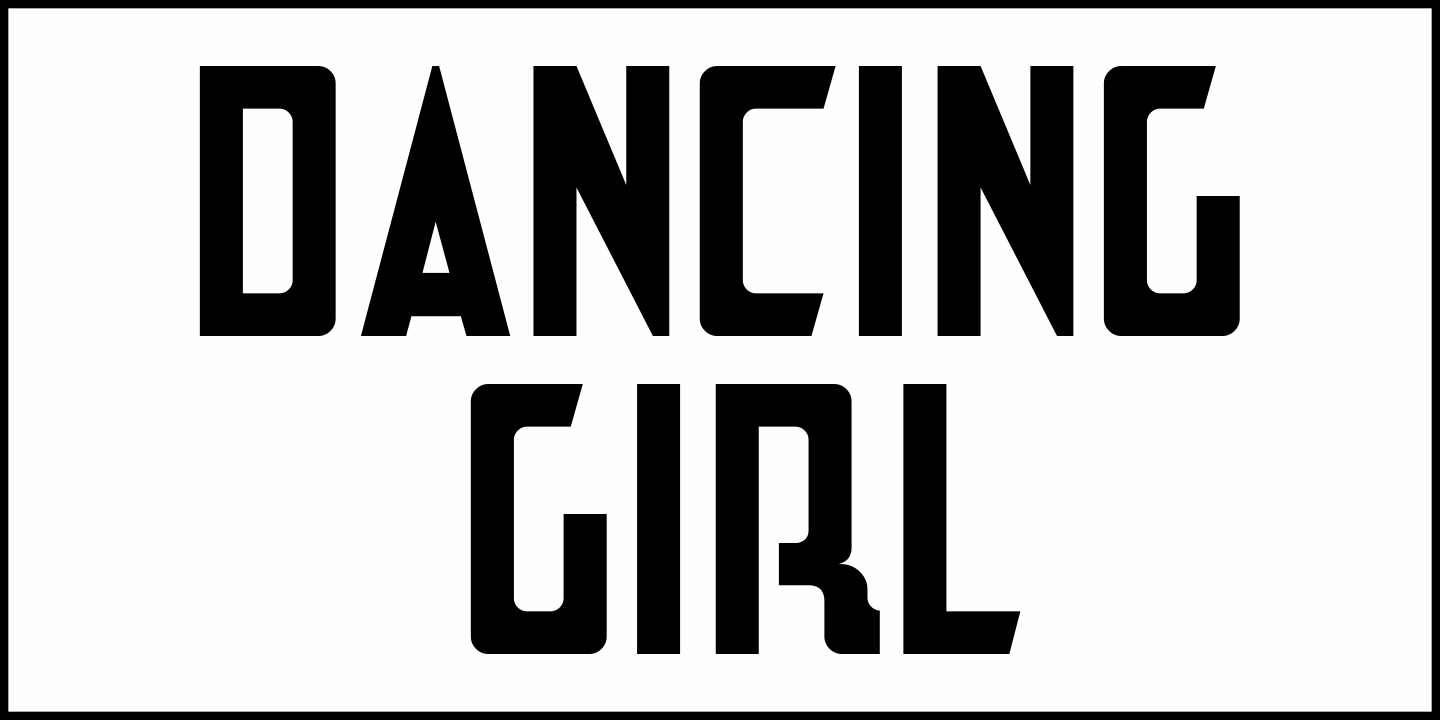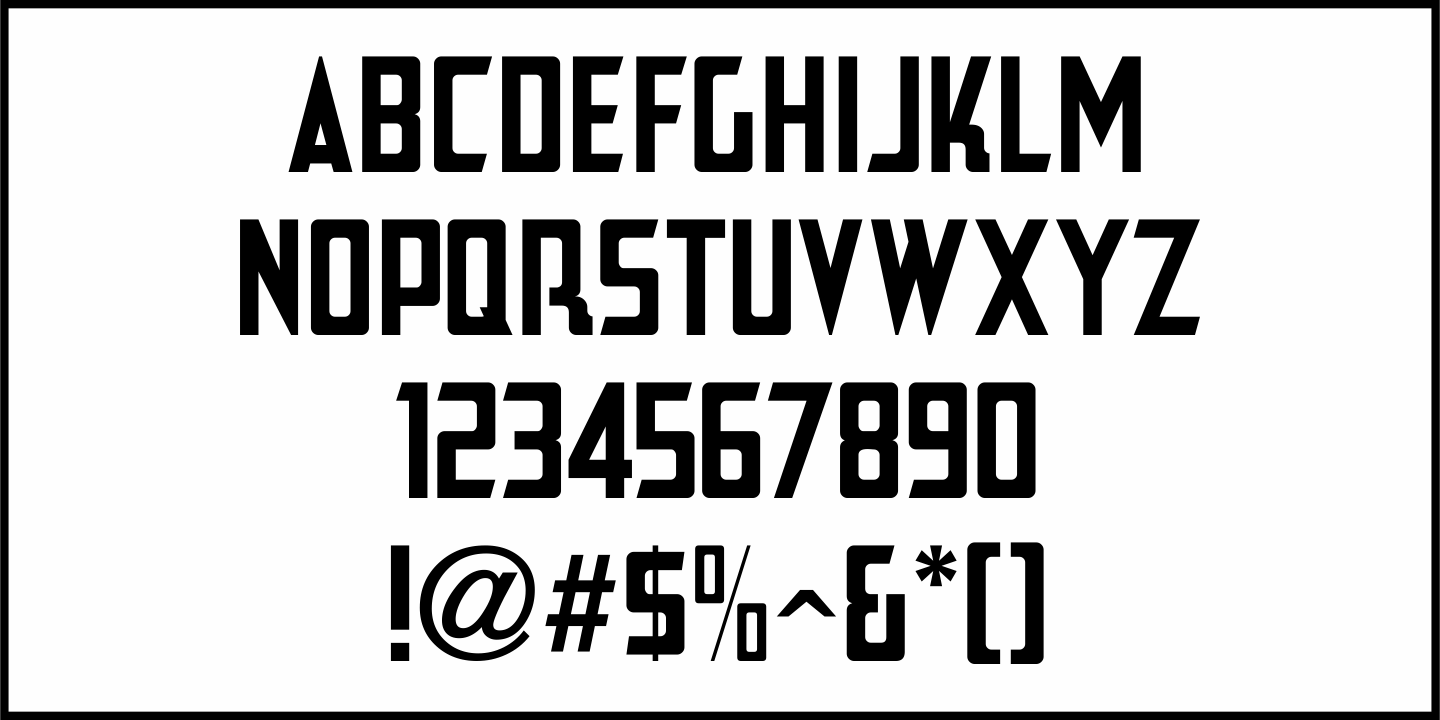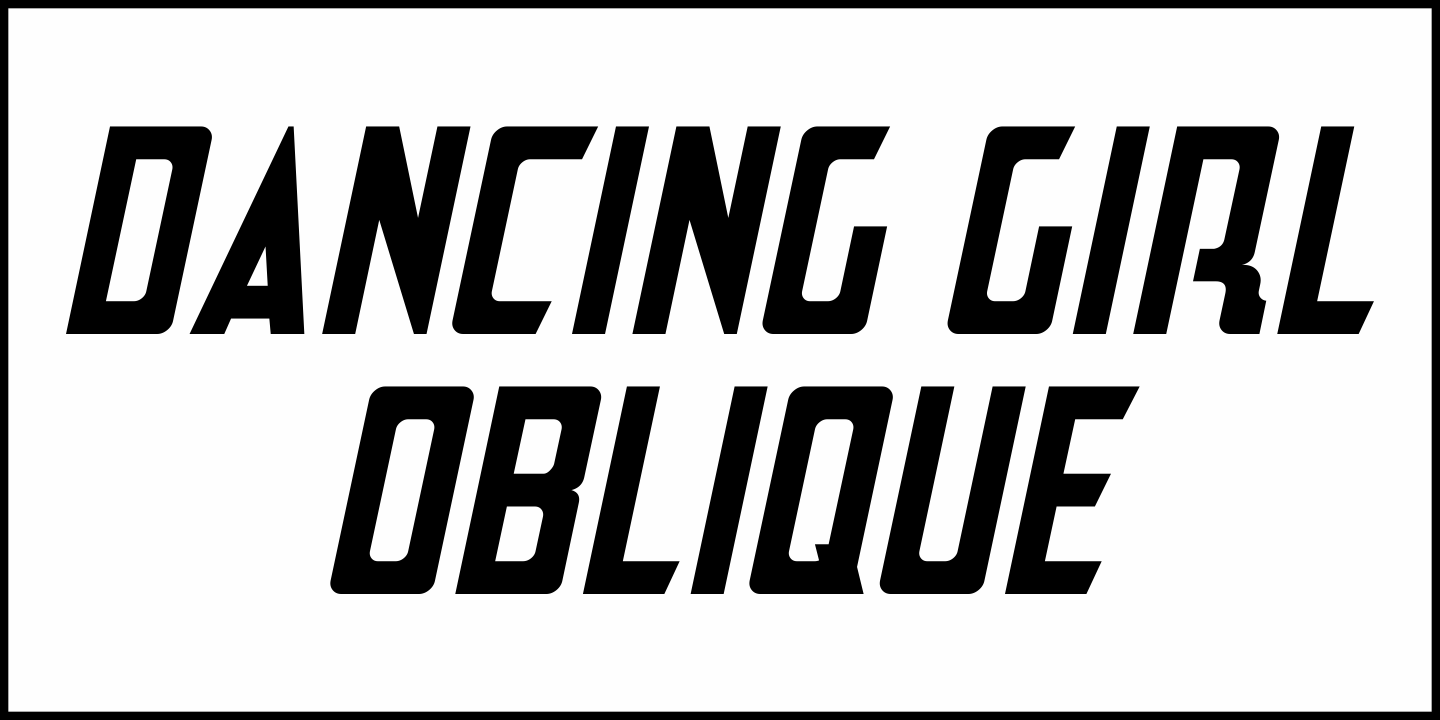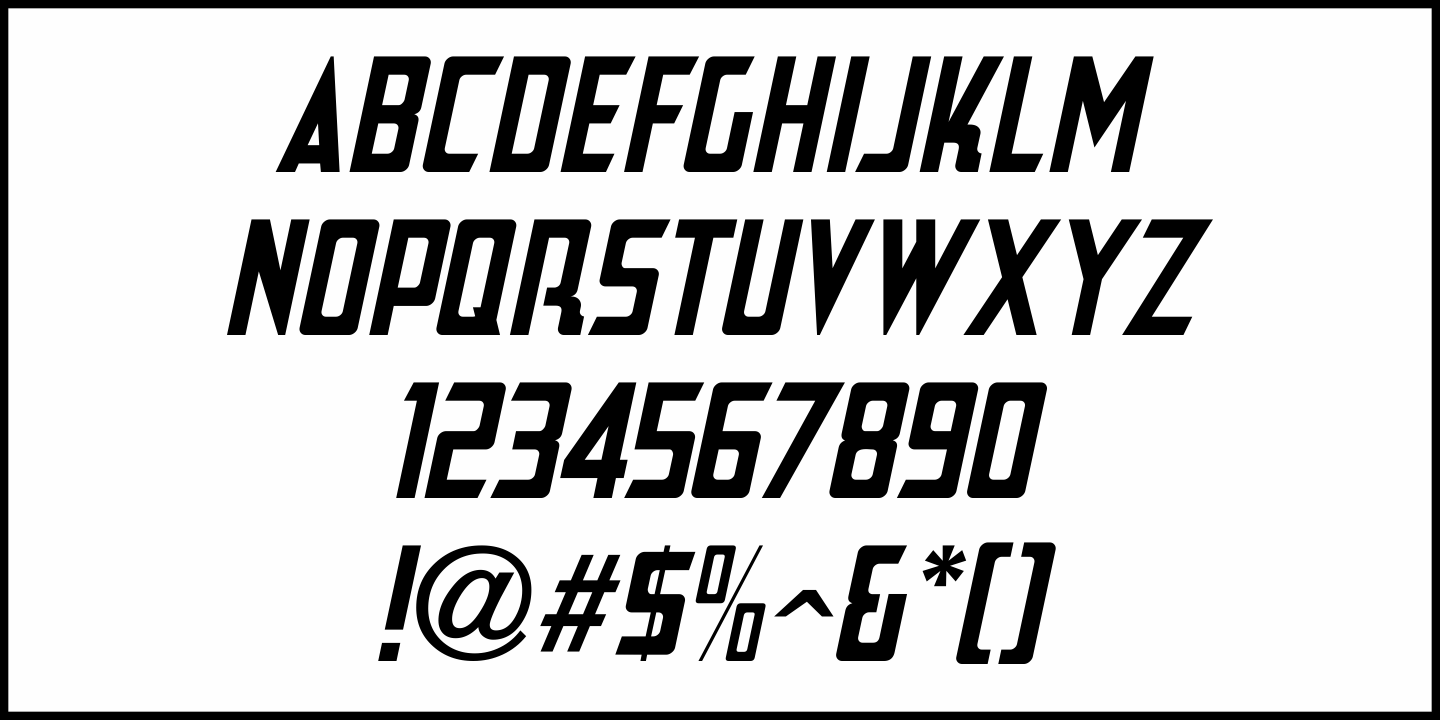
Dancing Girl
The poster for the 1930 film “Show Girl in Hollywood” had the title hand lettered in a squared Art Deco style with some angled cross strokes. This became the basis for Dancing Girl JNL, which is available in both regular and oblique versions.
Dancing Girl JNL Regular by Jeff Levine Fonts